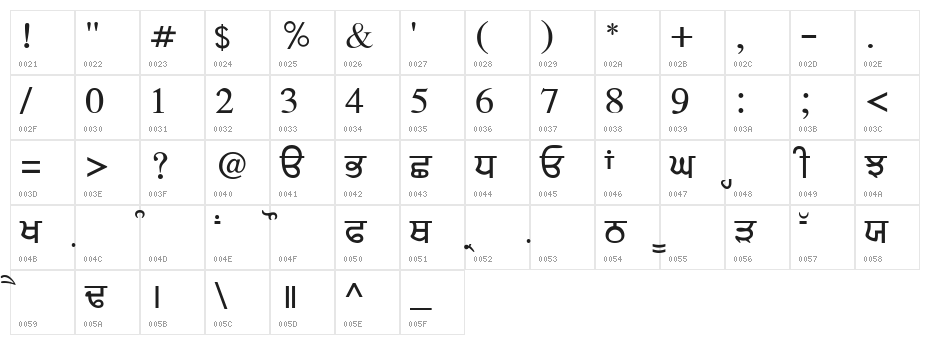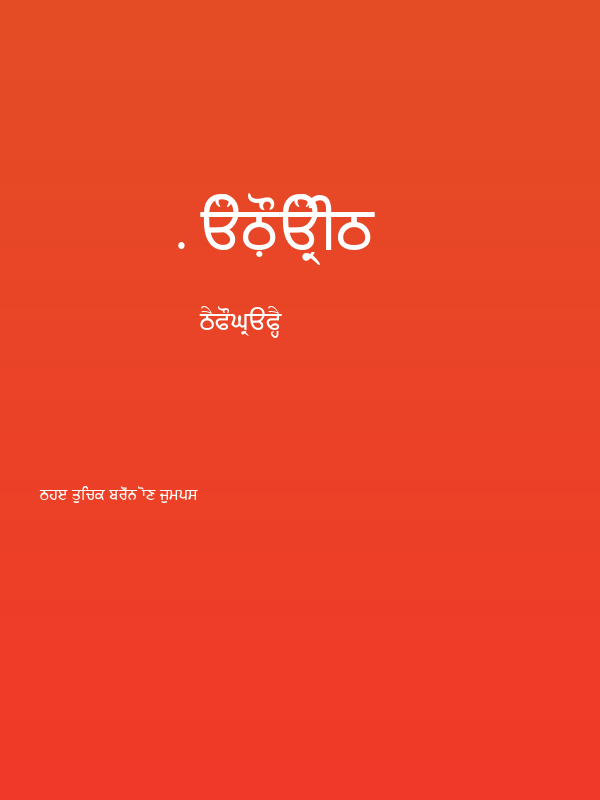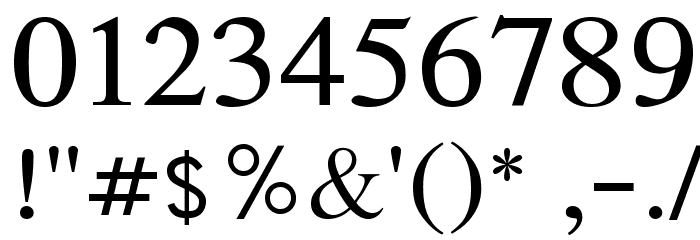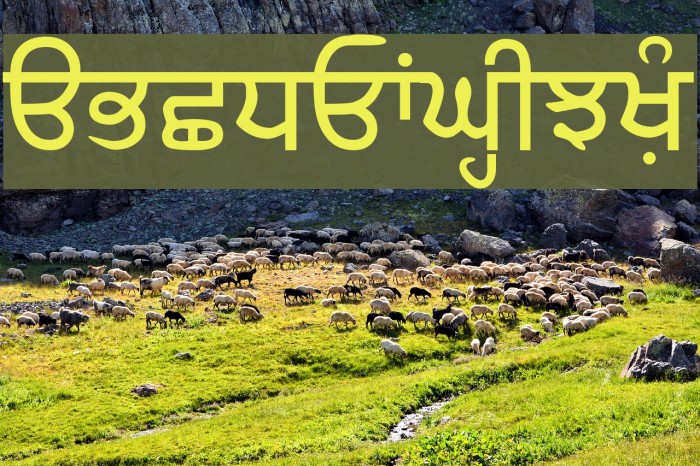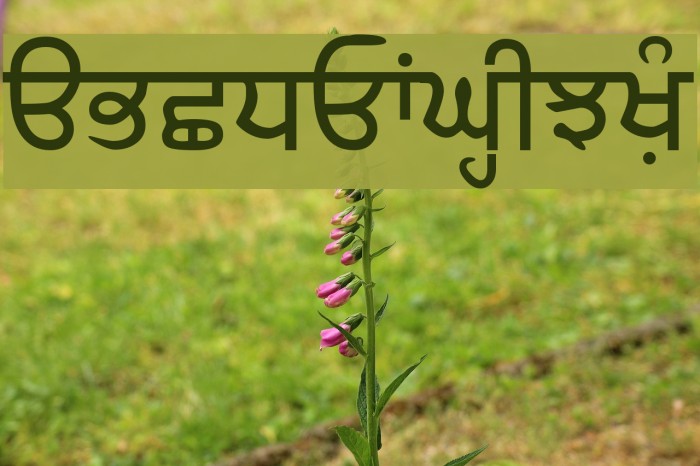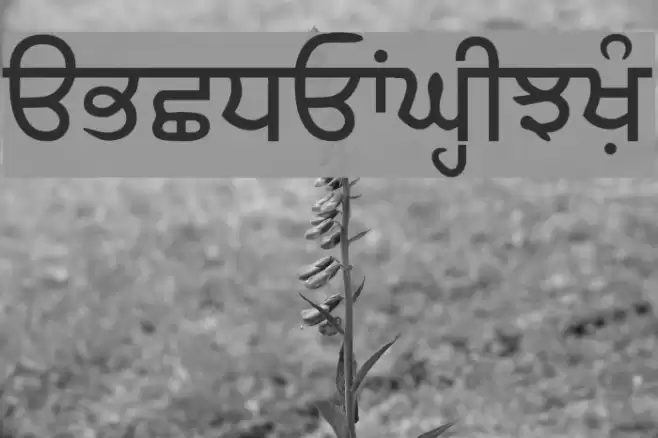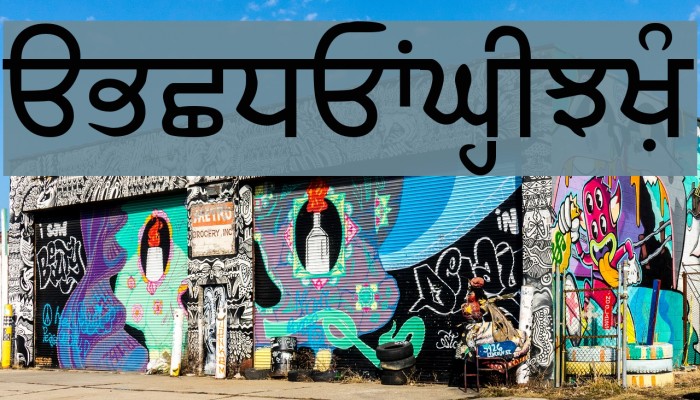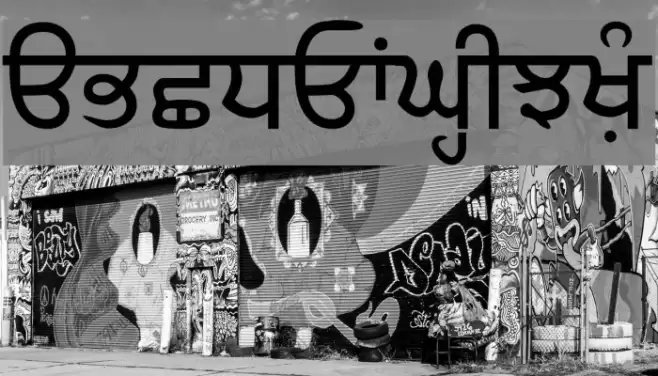
SamtolAmrit Font
SamtolAmrit Description
This font features a distinct and bold style with a strong presence, characterized by its thick strokes and high contrast. The characters are well-defined, with a traditional yet modern appeal. The numerals are clear and easy to read, while the special characters maintain the same boldness and clarity. This font is versatile, suitable for both digital and print media, and can be used to make a statement in any design project. Its bold nature makes it ideal for headlines and titles, ensuring that the text stands out and captures attention.
| Proposed Projects | This font is perfect for branding projects, poster designs, and any application where a strong, eye-catching typeface is needed. It can also be used in editorial design for magazine covers or feature articles. |